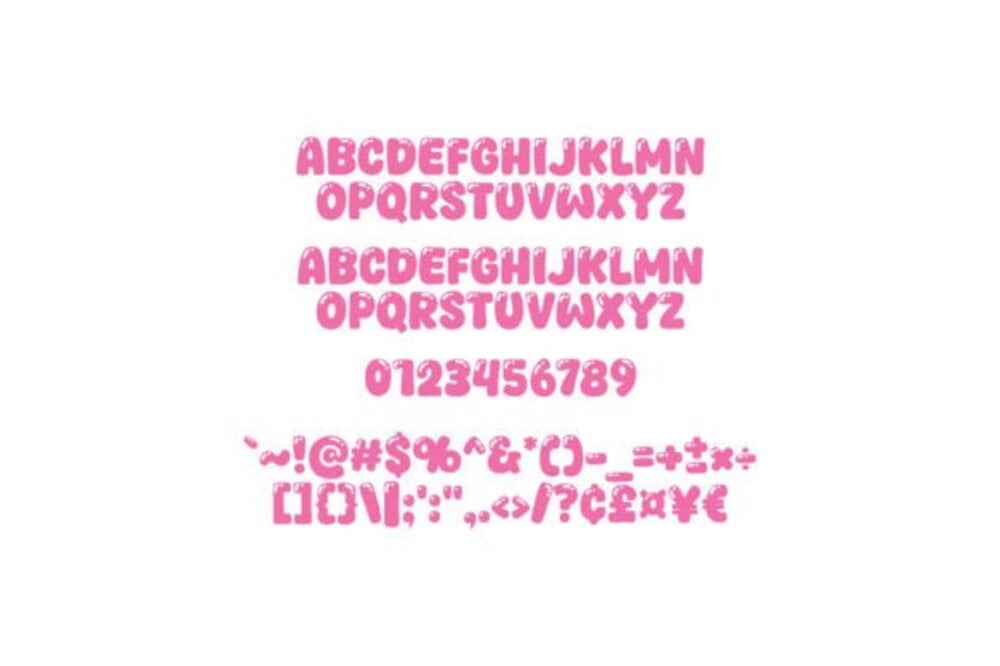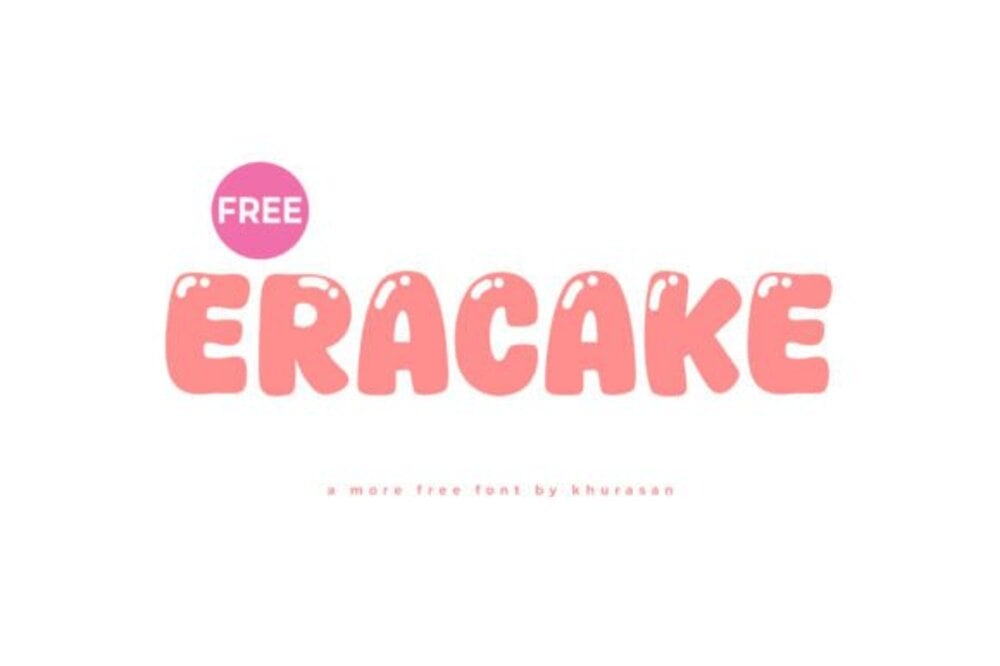
Eracake Font
Eracake Font is a unique and playful typeface that radiates charm and creativity. With its bold, rounded characters and whimsical details, it’s perfect for projects that need a fun and inviting vibe, such as party invitations, children’s books, or quirky branding. Its distinct personality ensures your designs stand out with a delightful and imaginative touch. Eracake Font is ideal for adding a unique flair to any creative project.